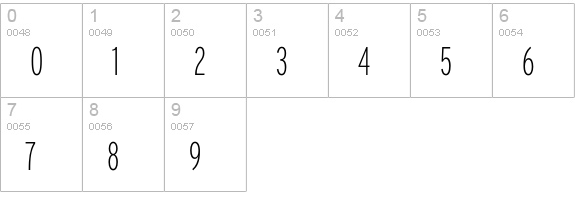
Interstate ExtraLight Comp Font Details
Interstate ExtraLight Comp is an airy, ultra-refined variant in the Interstate typeface family \xE2\x80\x94 well suited to minimalist headlines and refined display use.
Introducing Interstate ExtraLight Comp font, a stunning typeface that effortlessly combines elegance and simplicity. Crafted with meticulous attention to detail, this font boasts a delicate and refined design that is perfect for creating a modern and sophisticated look. Interstate ExtraLight Comp font features a slender and graceful appearance, making it ideal for a wide range of design projects. Whether you are creating a logo, branding materials, or designing a website, this font will add a touch of class and professionalism to your work. What sets Interstate ExtraLight Comp font apart is that it is freely available to download at FontsMarket.com. Yes, you read that right - this exceptional font is completely free for personal and commercial use. So, you can elevate your designs without having to worry about any additional costs. With its clean and crisp lines, Interstate ExtraLight Comp font brings a sense of clarity and ease to your typography. Its legibility is unmatched, ensuring that your message is communicated effectively in any context. Whether used in headlines or body text, this font effortlessly captivates readers and commands attention. The versatility of Interstate ExtraLight Comp font is truly remarkable. It harmonizes effortlessly with other typefaces, allowing you to experiment with various combinations and create unique and eye-catching designs. Its timeless appeal ensures that your work will remain relevant and impactful for years to come. So, why wait? Download Interstate ExtraLight Comp font for free at FontsMarket.com and unlock a world of design possibilities. Embrace the elegance and beauty of this font, and let it elevate your projects to new heights. With its seamless integration, legibility, and timeless charm, Interstate ExtraLight Comp font is a must-have for any design enthusiast or professional.